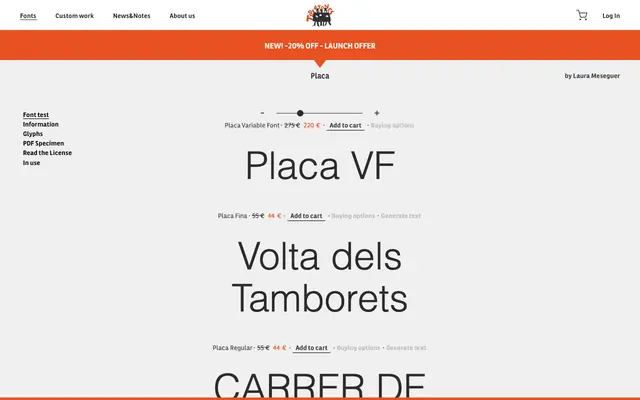
Placa
A five-weight display sans by Laura Meseguer, available as a variable font, with sample text drawn from Barcelona street names.
Designed by Laura Meseguer and published by Type-ø-tones, Placa spans five weights from Fina to Gruixuda with a variable font version covering the full range in a single file. The specimen text references Catalan street names and plazas, suggesting a design rooted in urban signage traditions. Best suited to headline, wayfinding and identity work where weight contrast across a compact axis is useful.
The weight range from Fina to Gruixuda and the variable font offering suggest a display-oriented sans designed for signage and headline use, consistent with the Catalan street-naming aesthetic implied by the sample text.